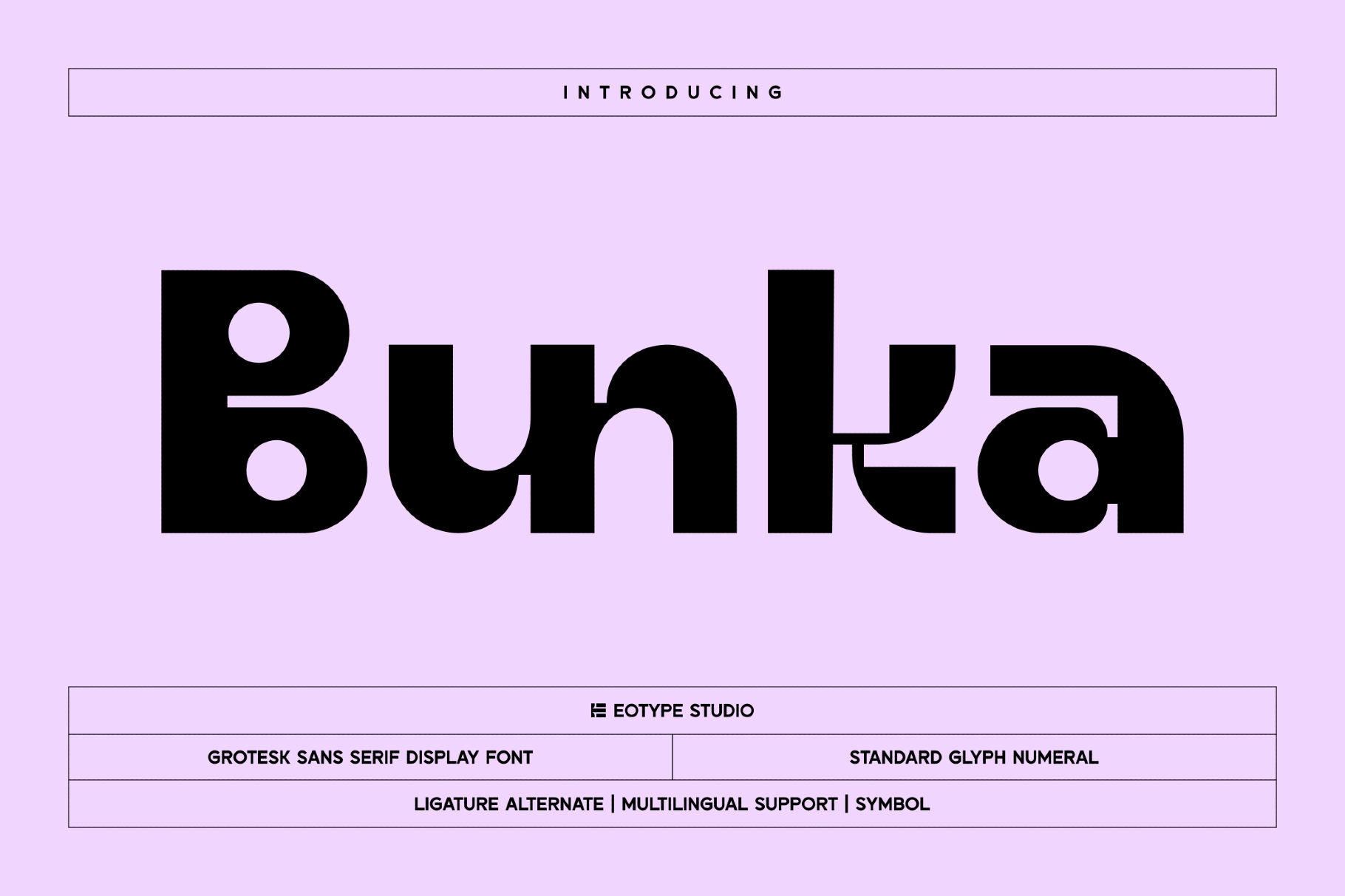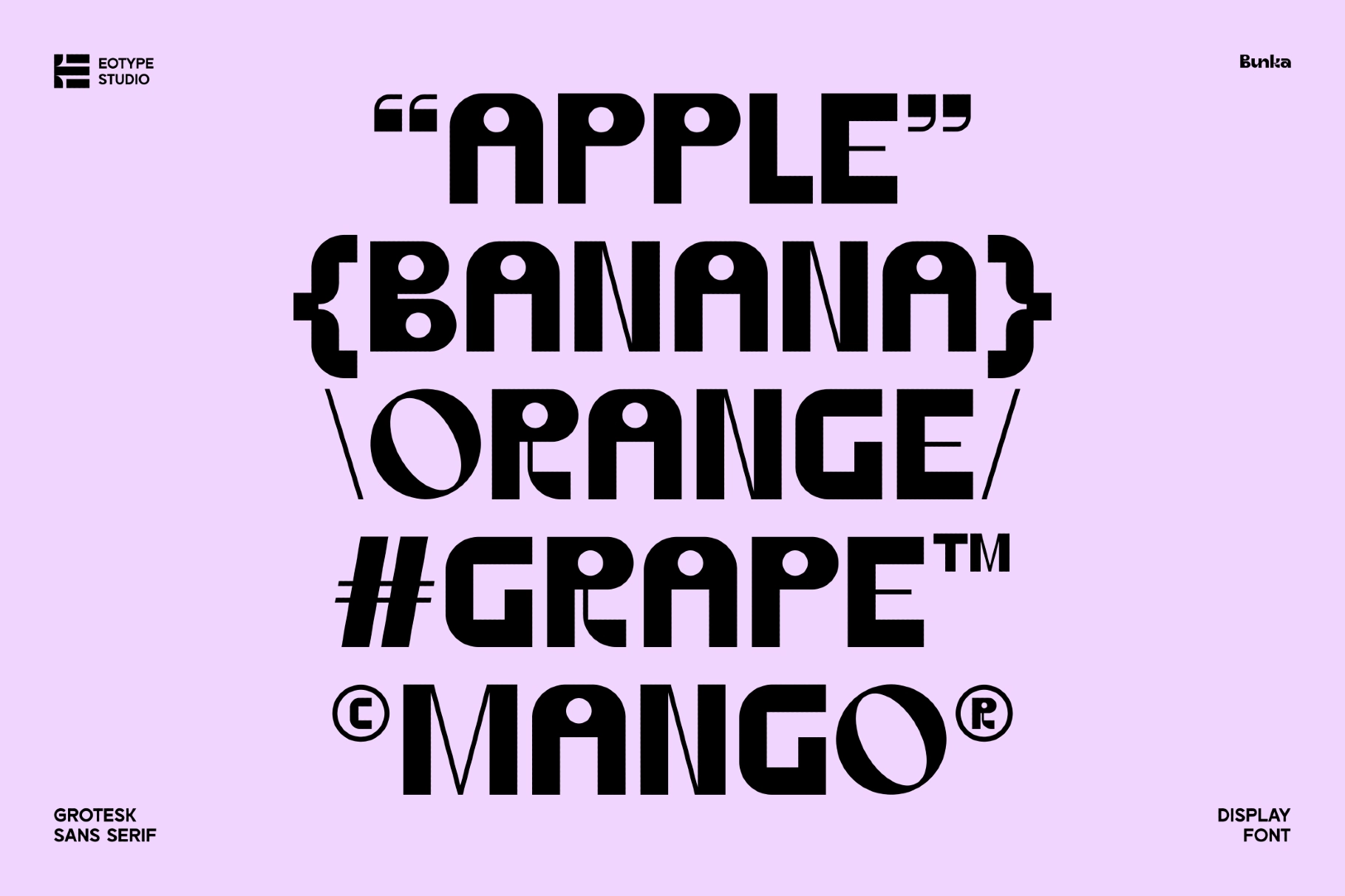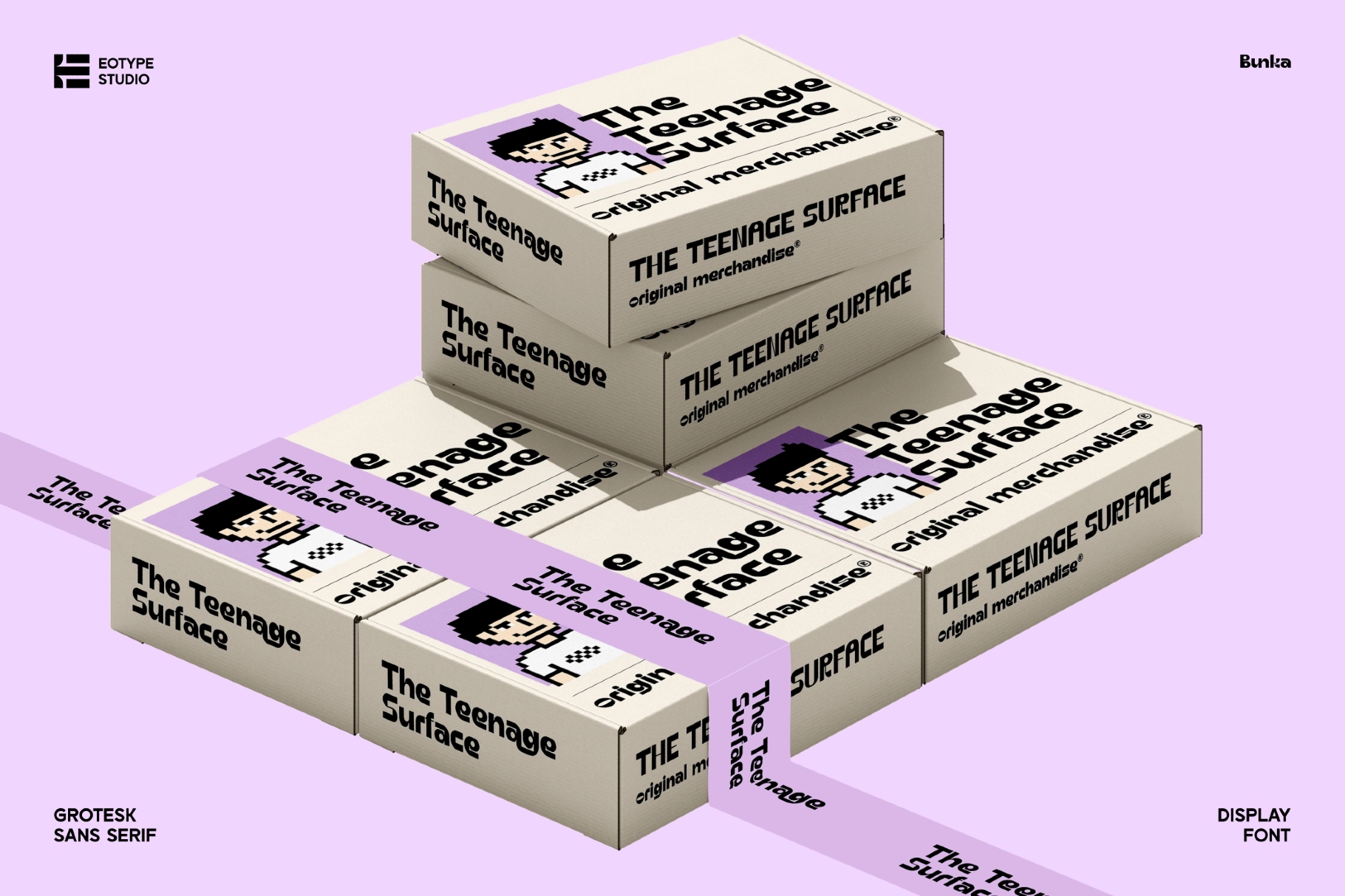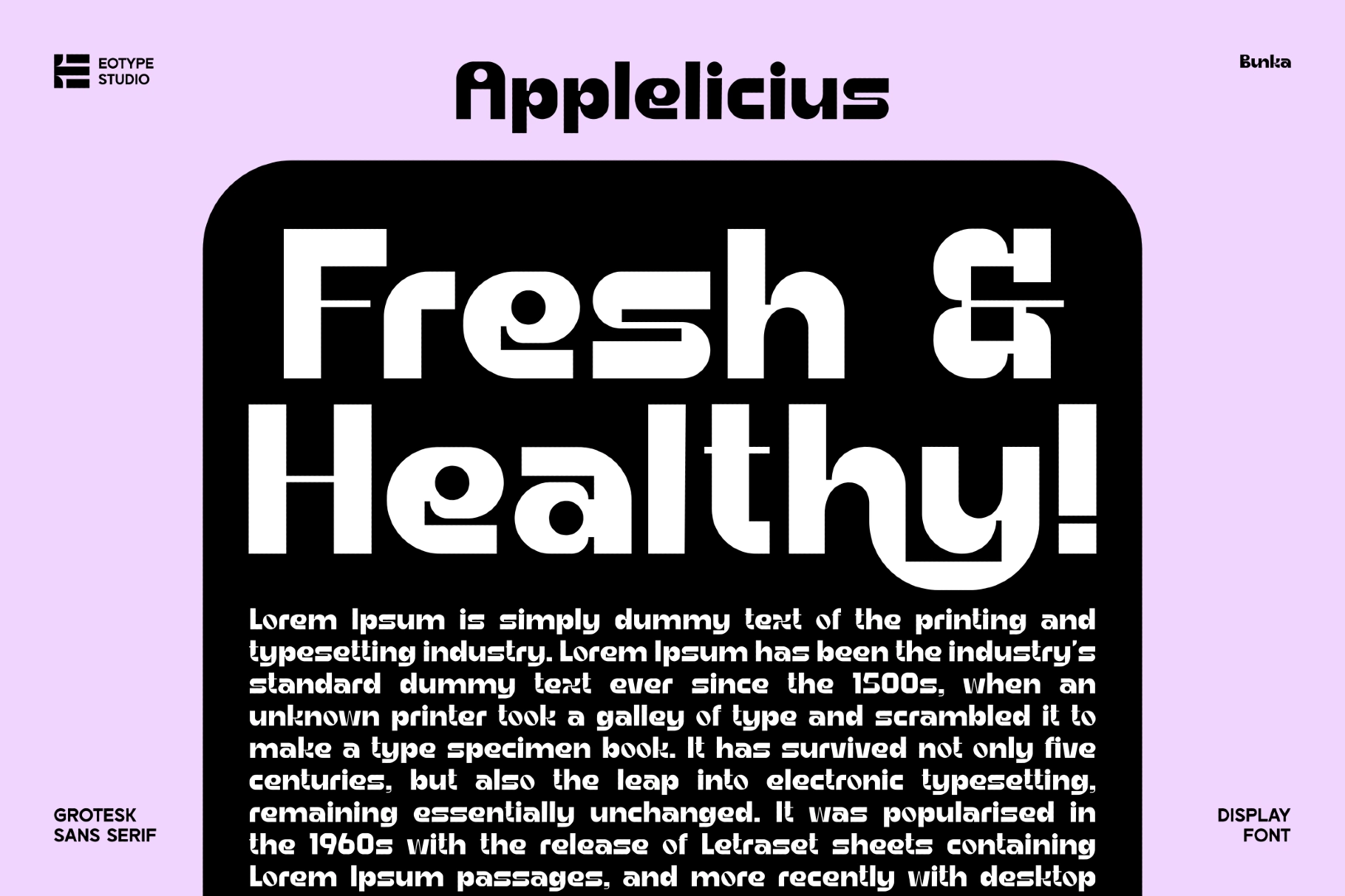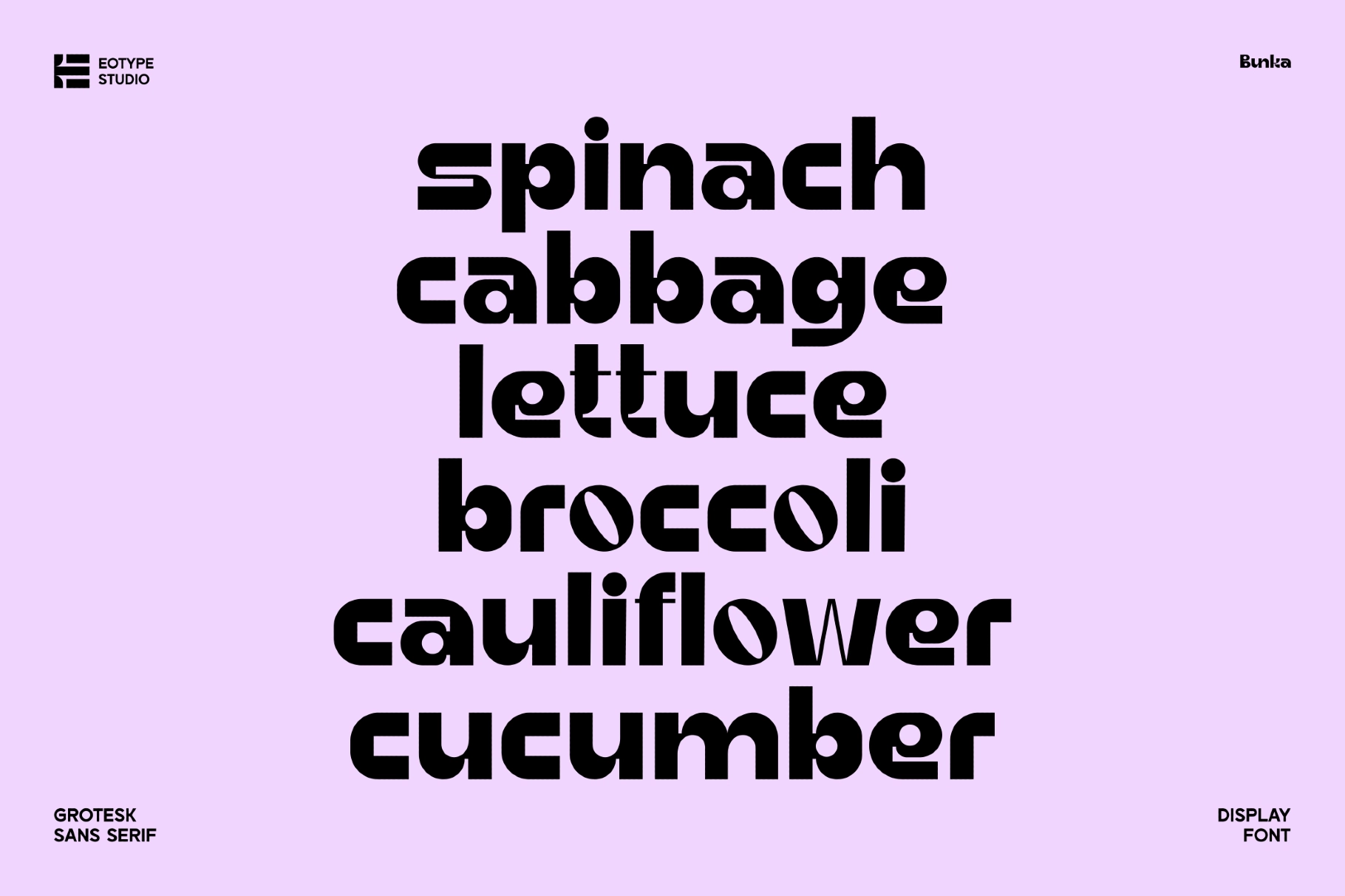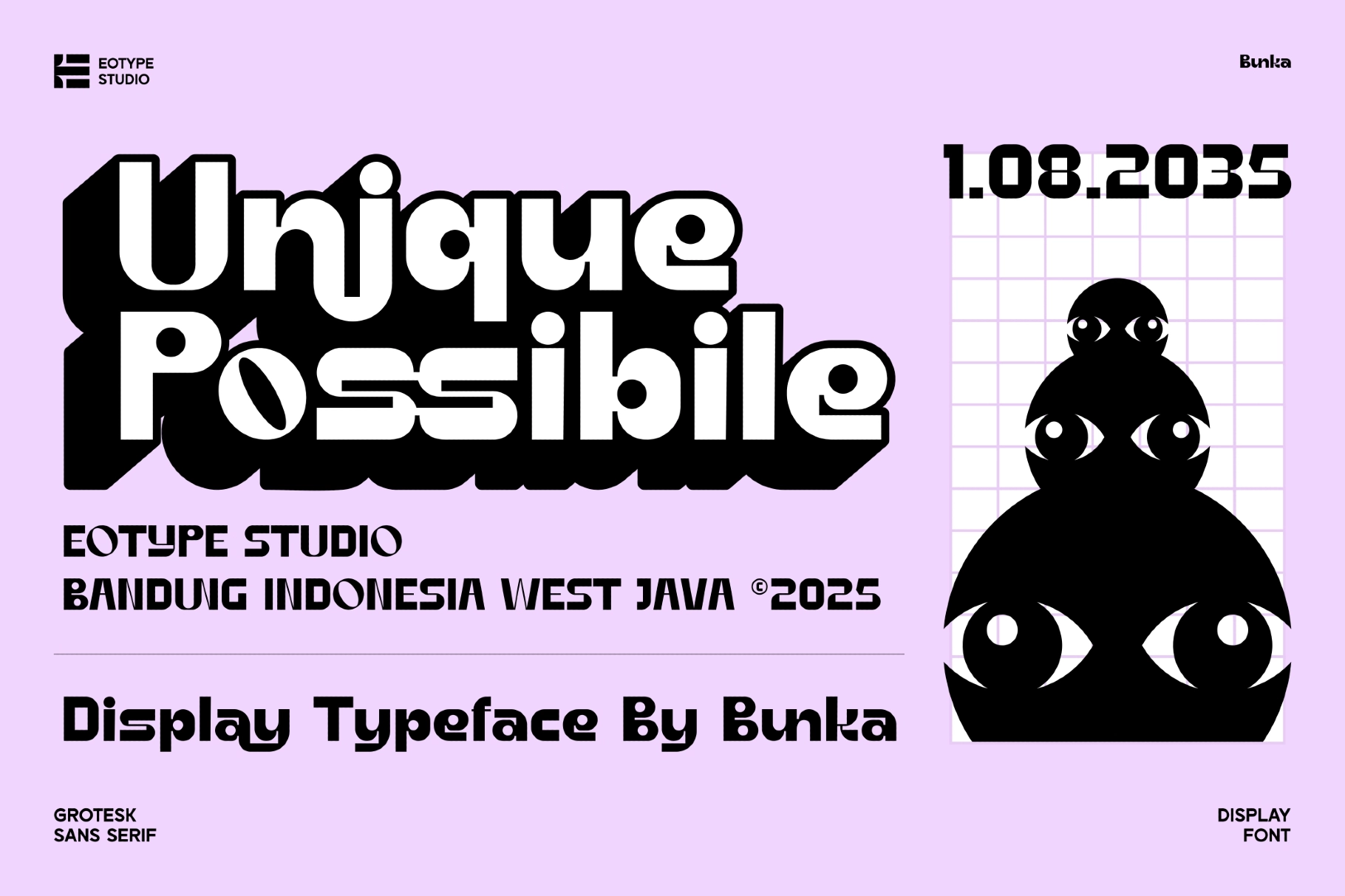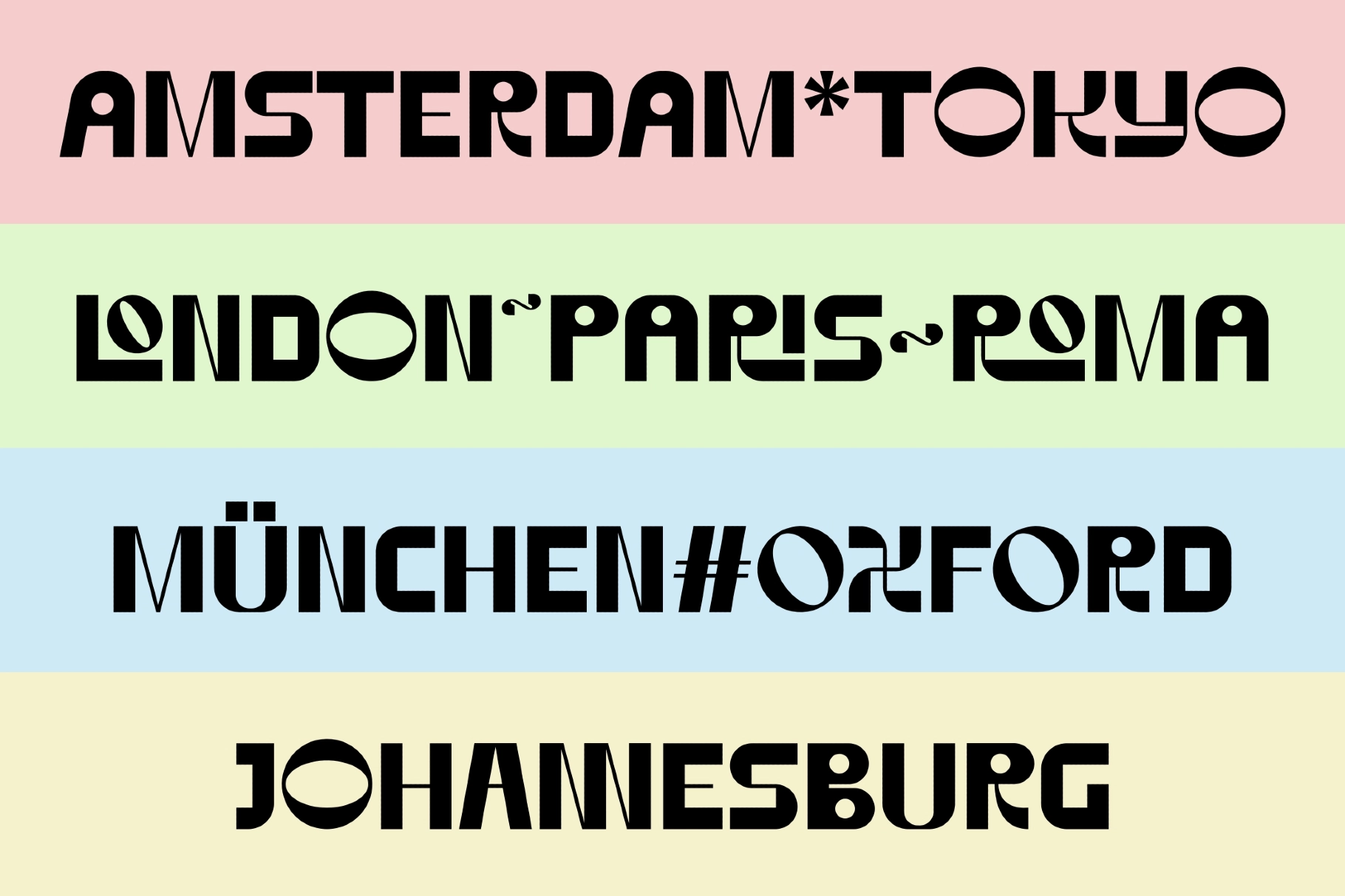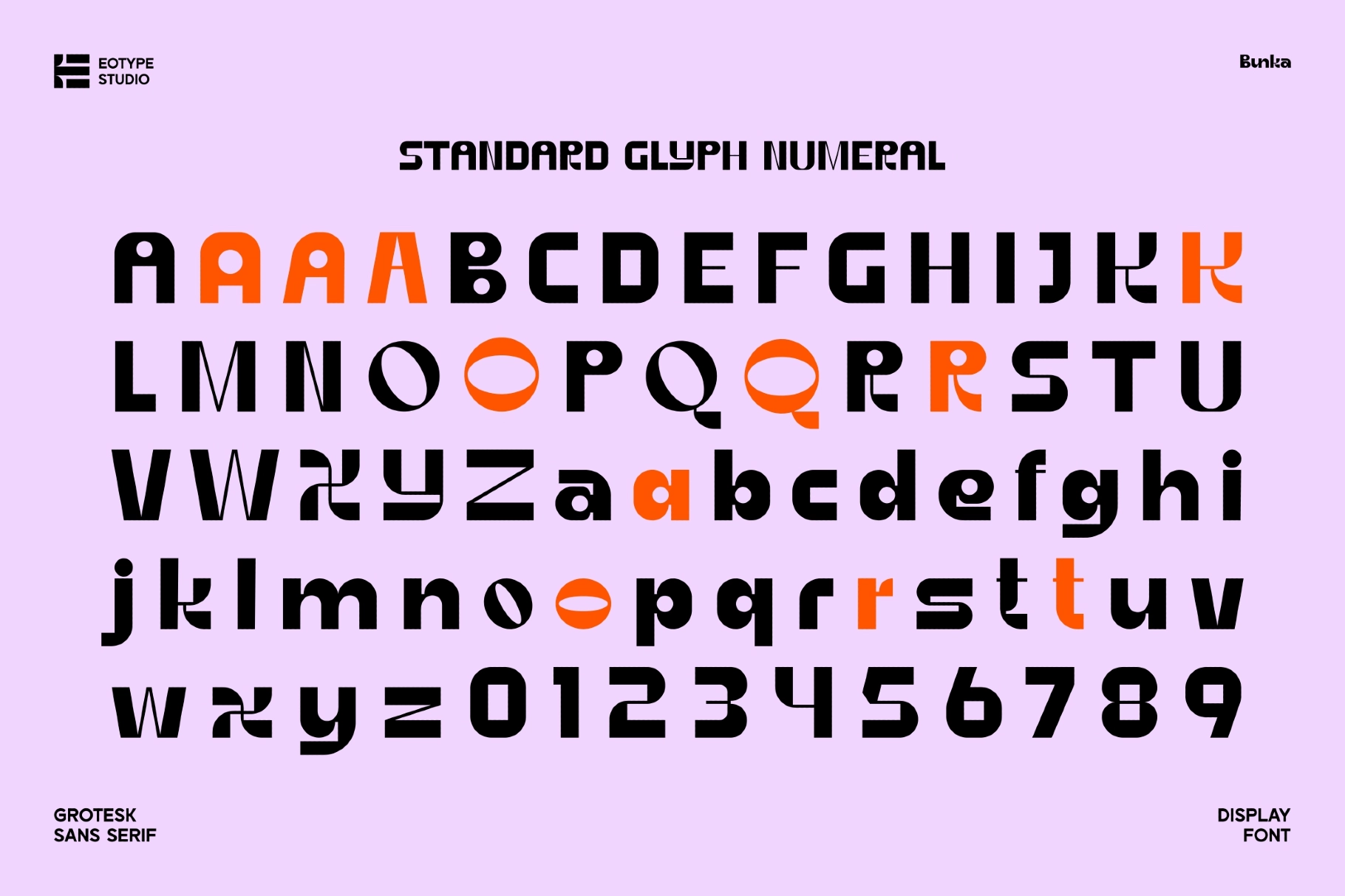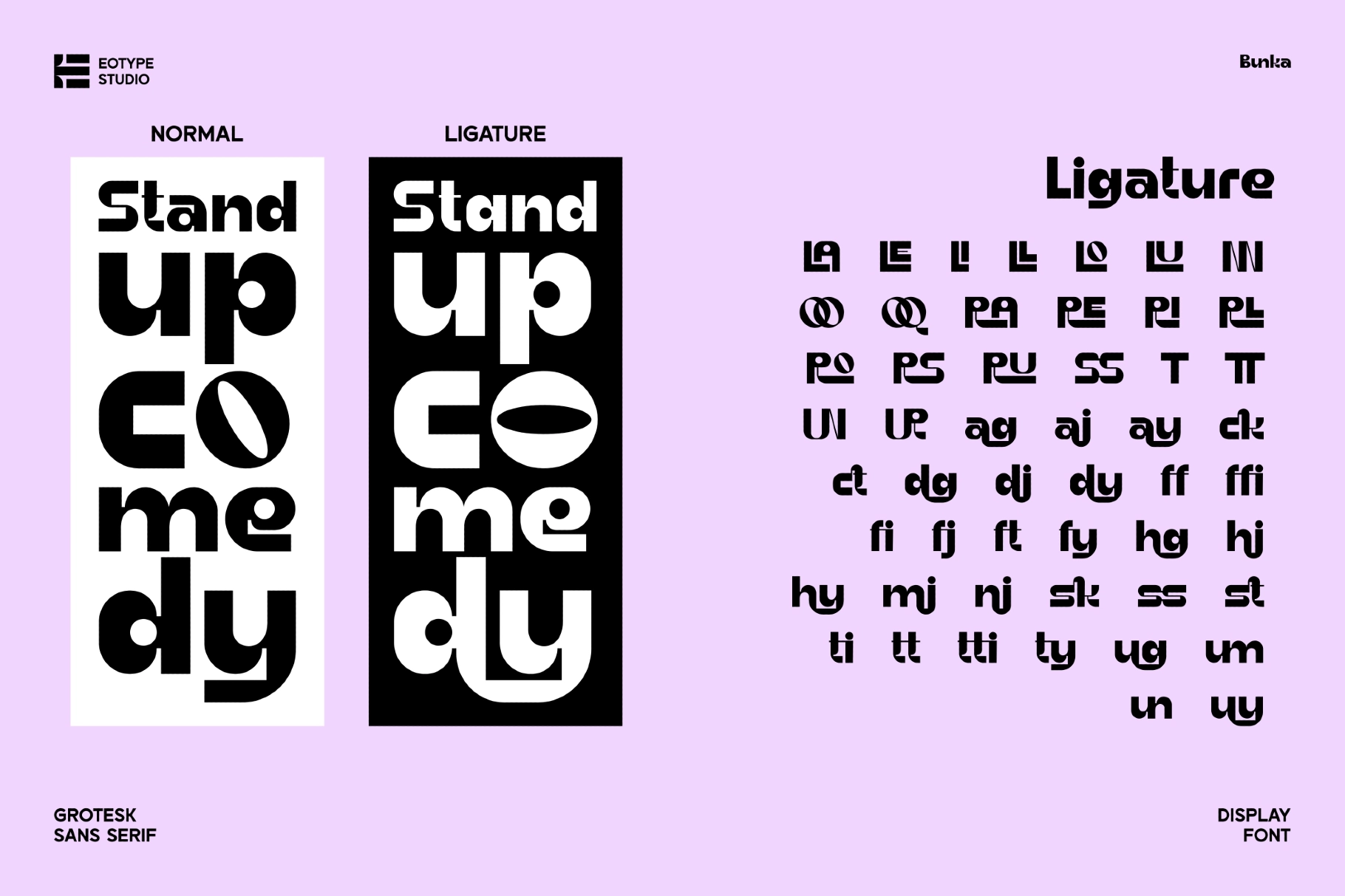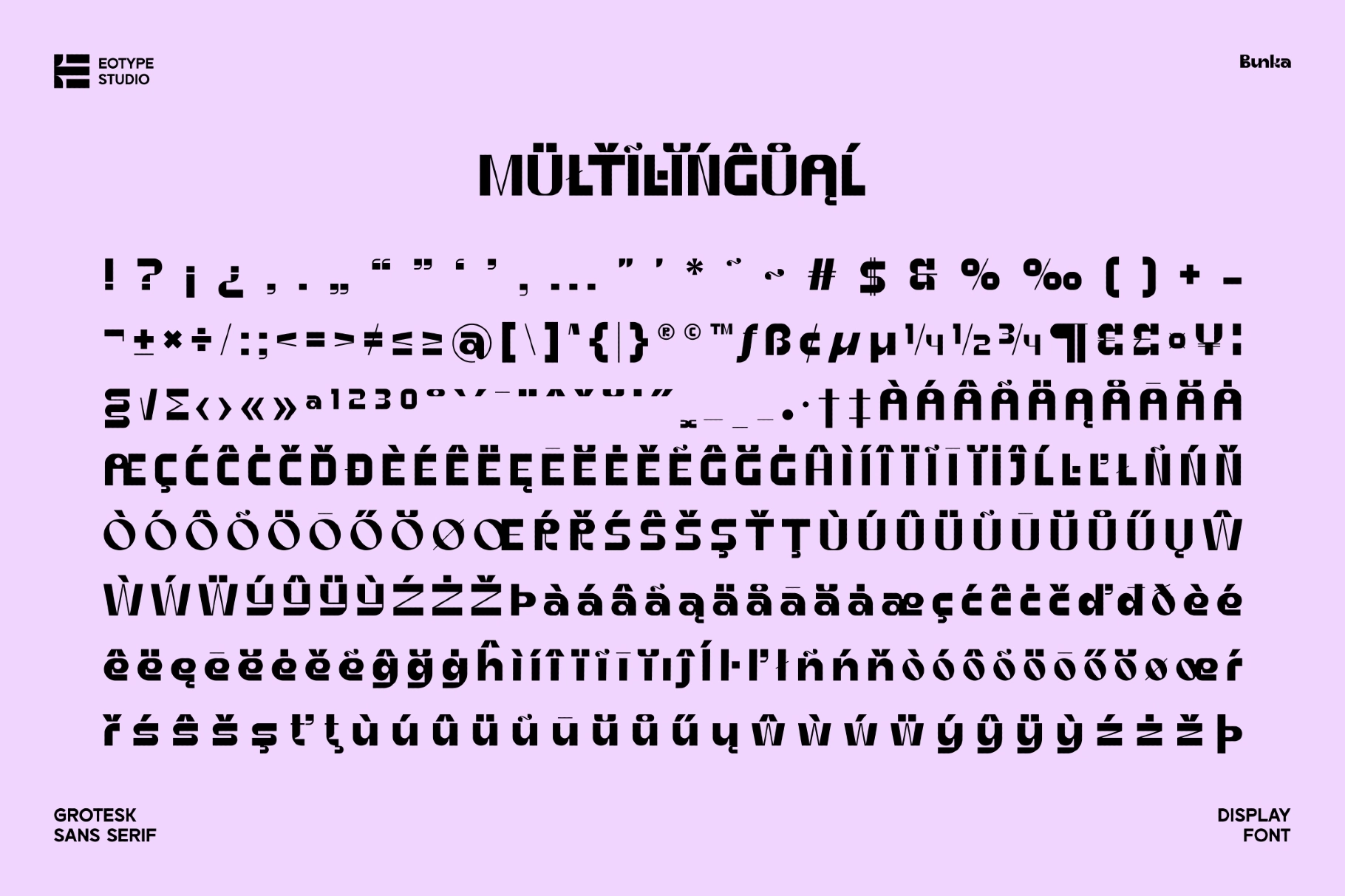
Bunka - Modern Geometric Sans Serif Font
Bunka is a bold display font built on a geometric sans skeleton pushed to an extreme weight — strokes are near-uniform and heavy, counters are tight circular cutouts, and the x-height is high enough that the lowercase reads as confident and space-efficient rather than compact. The construction sits closer to a rounded black grotesk than a conventional display sans: no contrast, no softness at the joins, just solid geometry that occupies the page.
The ligature set is where Bunka earns its character. Over 50 pairs merge into shared forms that shift the texture of a word in a way that default spacing can't. Use it for editorial headlines, food and beverage packaging, tech product branding, poster titles, app interfaces, and social campaign graphics.
- uppercase & lowercase;
- numerals, punctuation & symbols;
- stylistic alternates & ligatures;